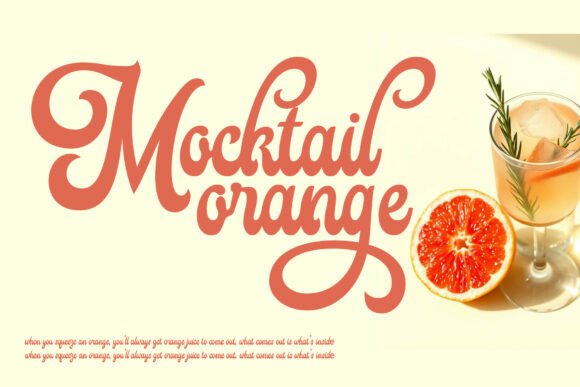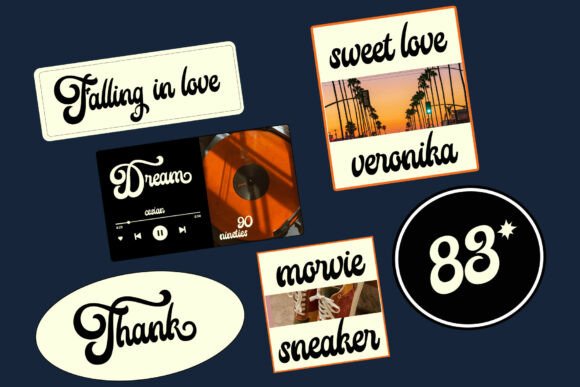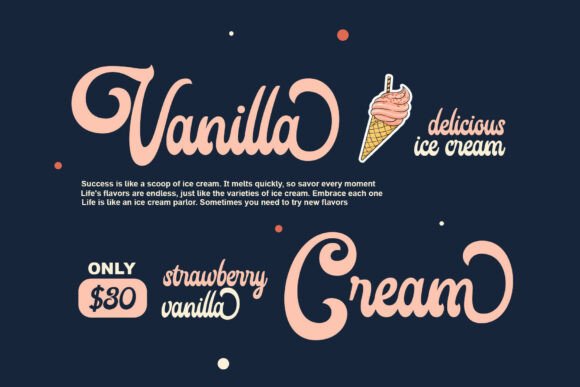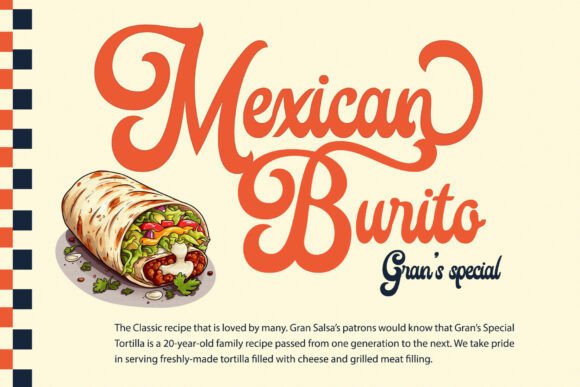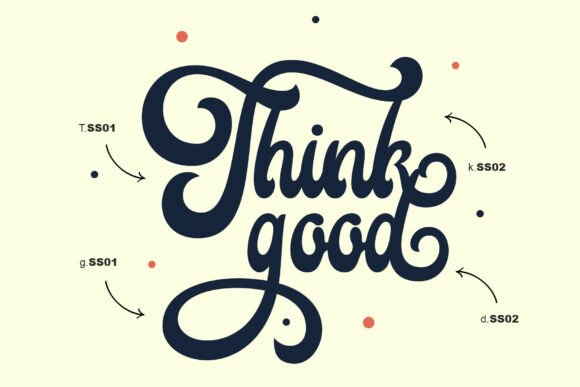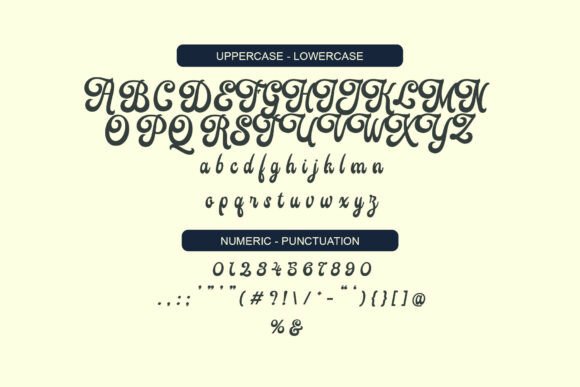
Introducing Felicya Font: The Epitome of Elegance and Sophistication
Step into a world of artistic charm with Felicya, a beauty fancy script font that masterfully blends graceful elegance with a vibrant, hand-lettered personality. This stunning font is designed to make a statement, whether you’re looking to add a touch of luxury to your branding, create eye-catching event invitations, or elevate your editorial design.
The Perfect Balance of Bold and Delicate
Felicya’s bold yet delicate weight makes it the perfect choice for a wide range of design applications. Its elegant strokes and curves exude a sense of sophistication, while its vibrant personality adds a touch of playfulness. This unique balance makes Felicya an ideal font for designers and crafters looking to create high-end designs that stand out from the crowd.
Luxury Branding and Upscale Events
For luxury brands and high-end events, Felicya provides an authentic, high-quality touch that radiates sophistication. Its elegant script and refined lines make it perfect for:
- Luxury branding: Add a touch of elegance to your logo, packaging, and marketing materials.
- Upscale event invitations: Create stunning invitations for weddings, galas, and other high-end events.
- Editorial mastheads: Elevate your magazine or newspaper design with a sophisticated and eye-catching title font.
Creative Packaging and Boutique Design
Felicya is also an excellent choice for creative packaging and boutique design. Its unique blend of elegance and playfulness makes it perfect for:
- Boutique shops: Add a touch of sophistication to your store’s branding, packaging, and marketing materials.
- Modern lifestyle brands: Create eye-catching designs for your products, packaging, and marketing materials.
- Creative packaging: Elevate your product packaging with a unique and elegant design that stands out on store shelves.
Why Choose Felicya Font?
So why choose Felicya font for your next design project? Here are just a few reasons:
- Elegance and sophistication: Felicya’s unique blend of bold and delicate lines makes it perfect for high-end designs.
- Versatility: Felicya can be used for a wide range of design applications, from luxury branding to creative packaging.
- High-quality design: Felicya is designed to provide an authentic, high-quality touch that radiates sophistication.
- Easy to use: Felicya is a script font that is easy to use and pairs well with a variety of other fonts.
Tips for Using Felicya Font
Here are a few tips for using Felicya font in your designs:
- Pair with a sans-serif font: Pair Felicya with a sans-serif font for a modern and elegant look.
- Use for headlines and titles: Felicya is perfect for headlines and titles, where its elegant script and refined lines can shine.
- Experiment with colors: Felicya looks stunning in a variety of colors, from metallic gold and silver to rich jewel tones.
In conclusion, Felicya font is a stunning beauty fancy script font that is perfect for designers and crafters looking to add a touch of elegance and sophistication to their designs. Its unique blend of bold and delicate lines makes it perfect for luxury branding, upscale events, editorial mastheads, and creative packaging. With its high-quality design and ease of use, Felicya is an excellent choice for any design project.